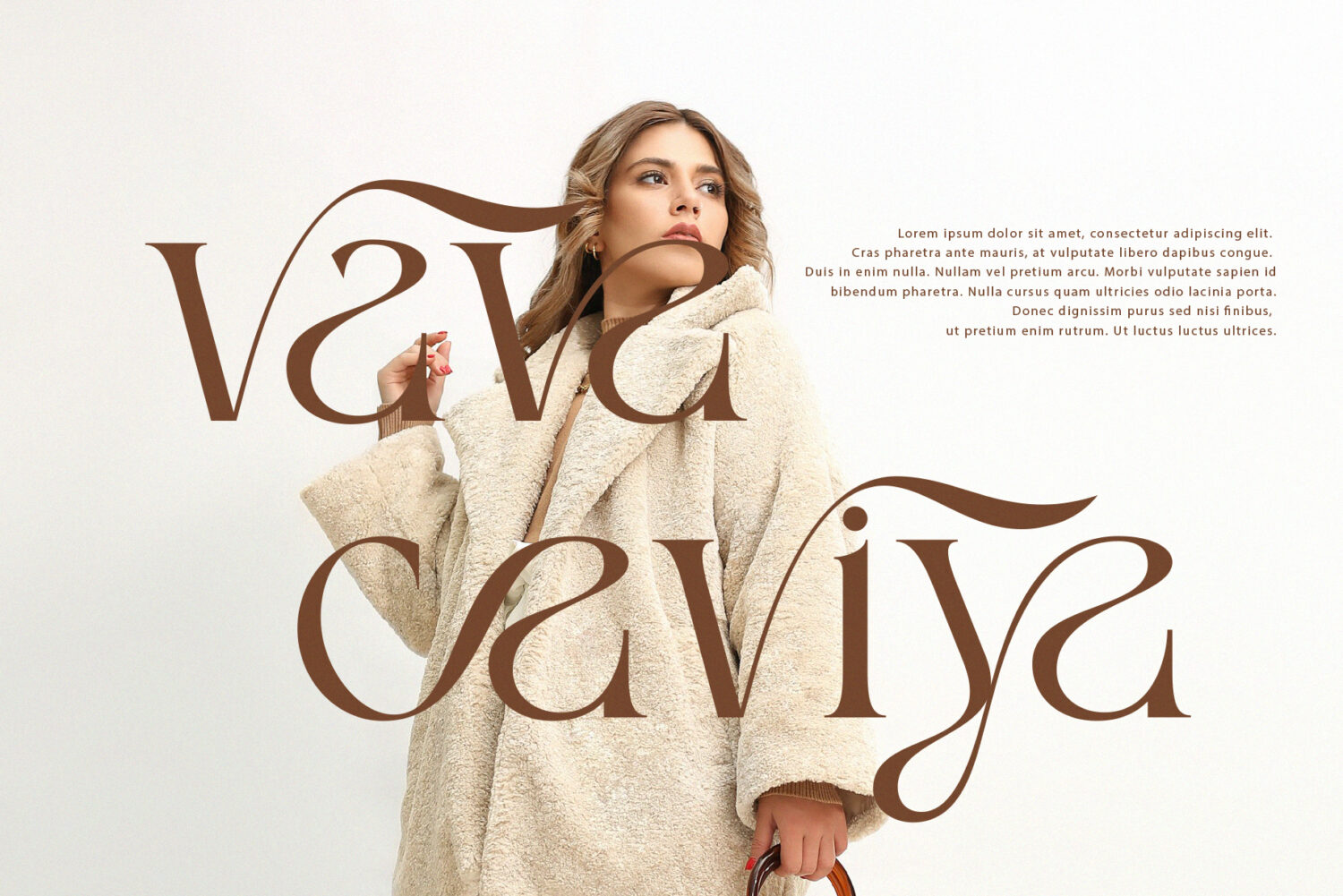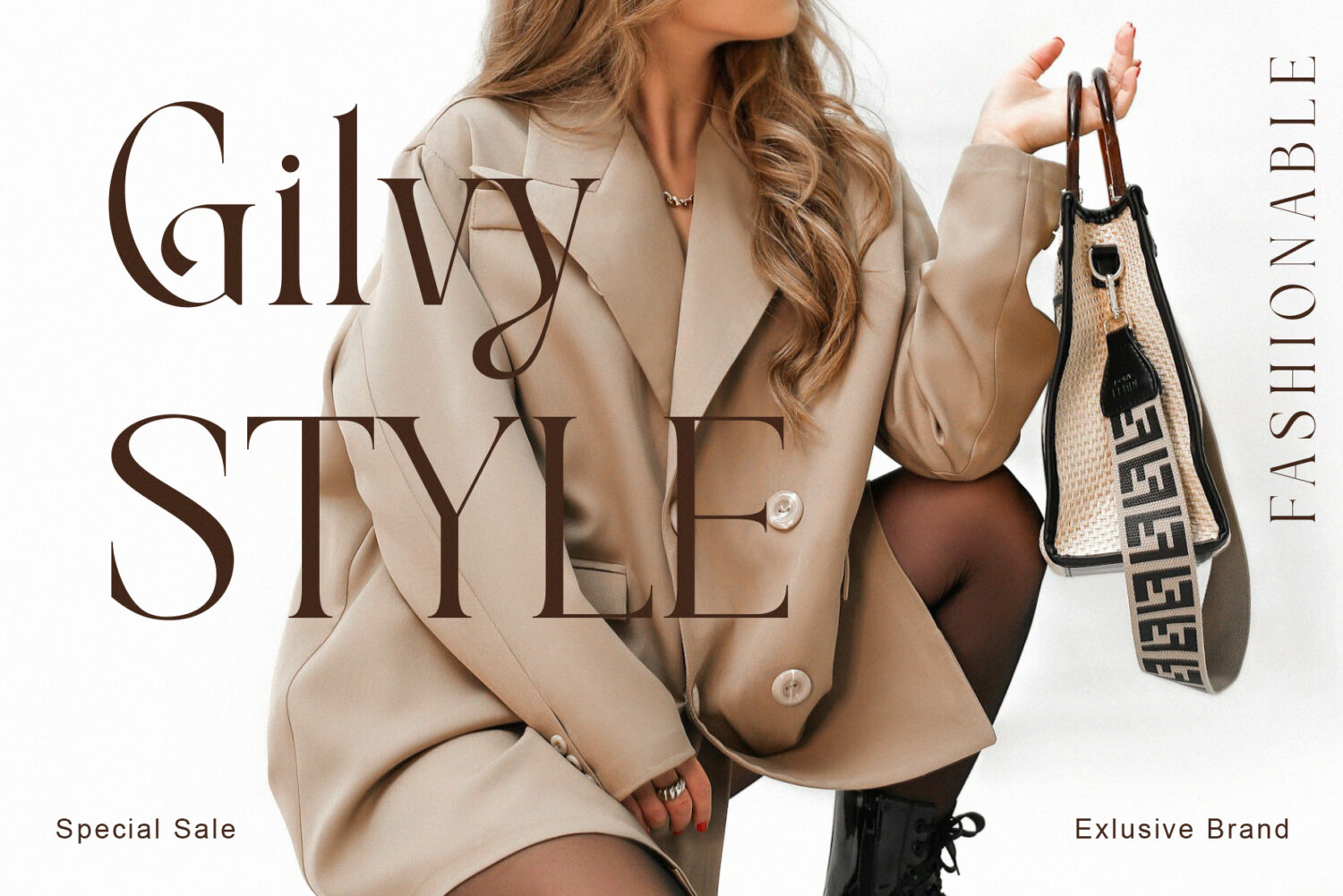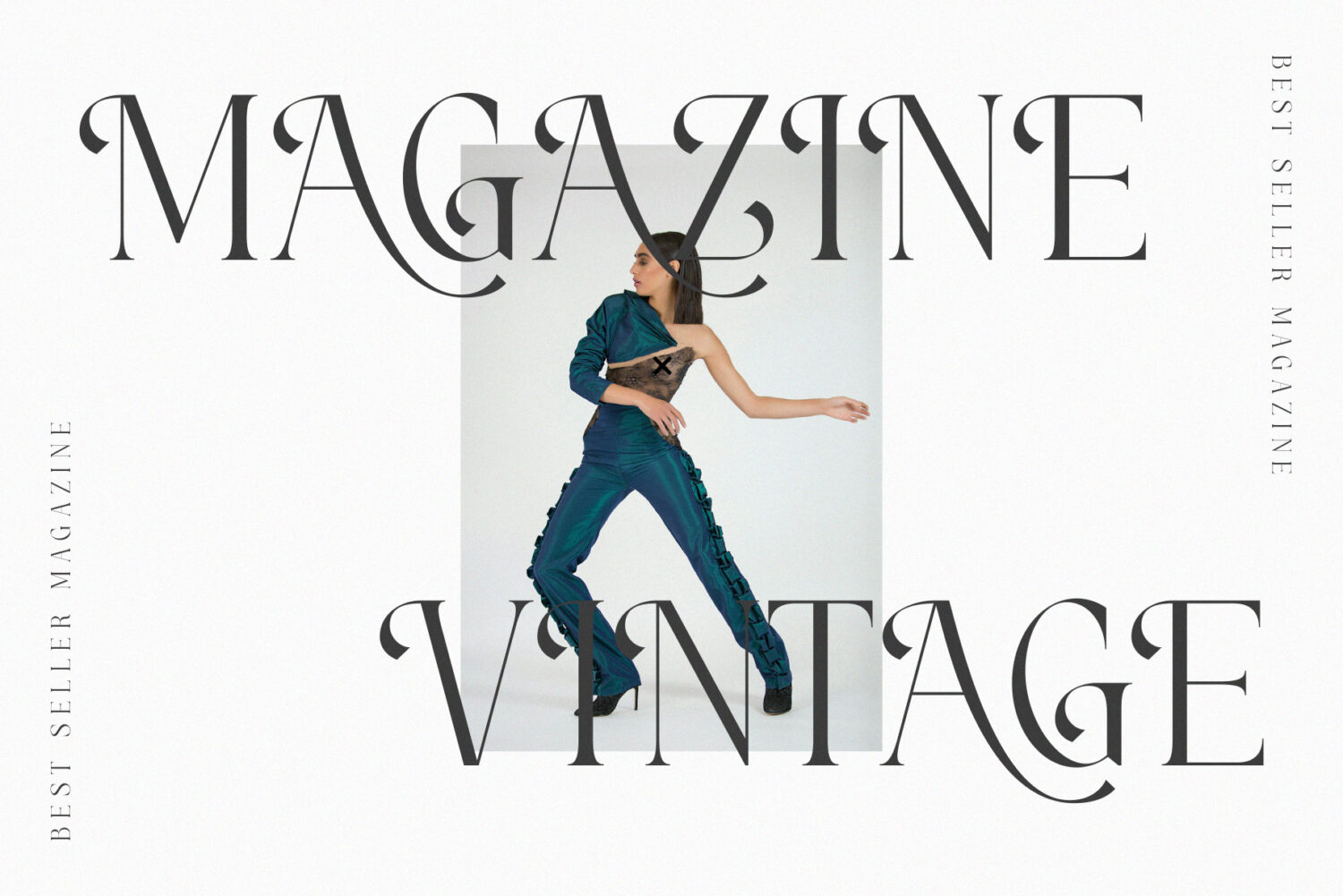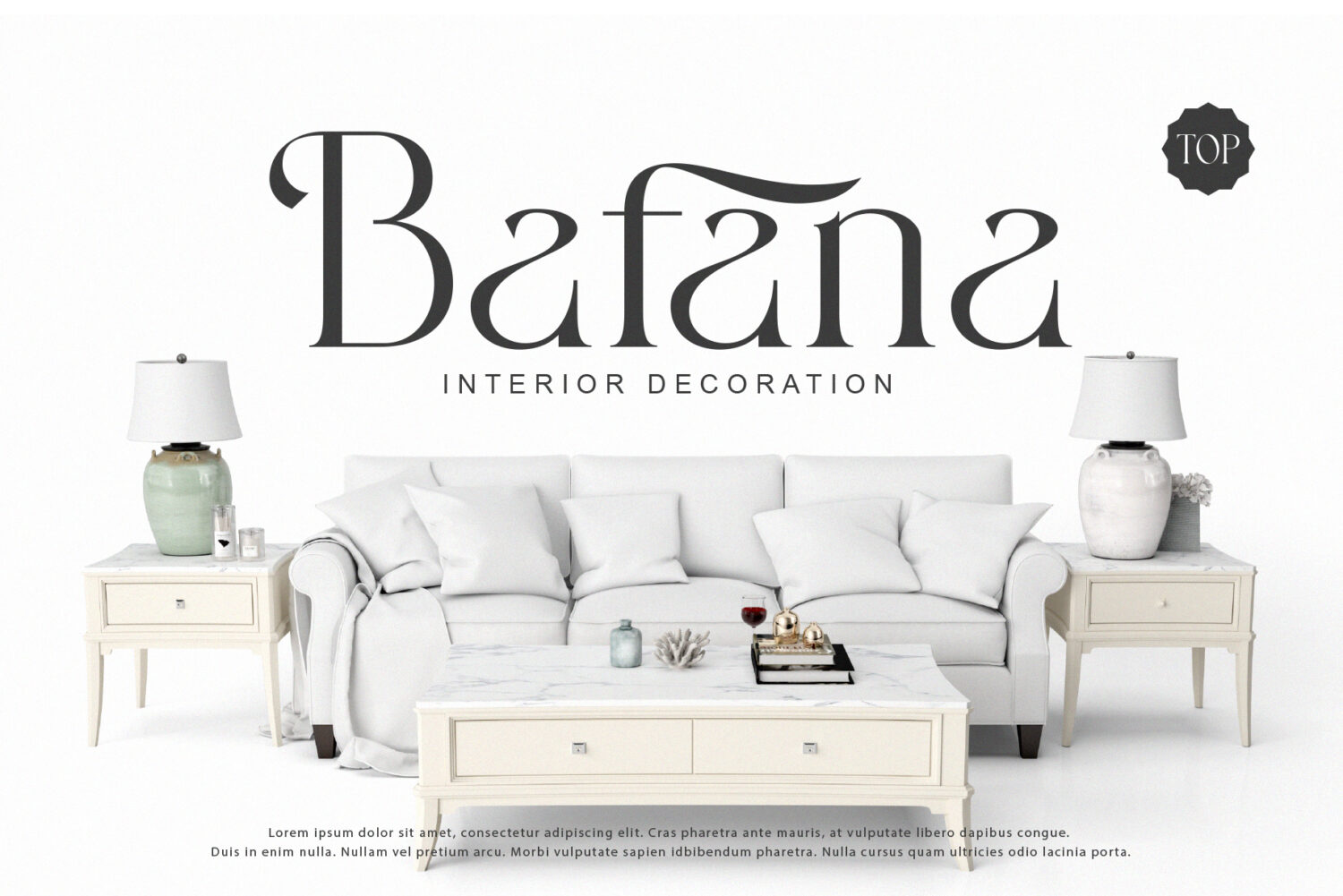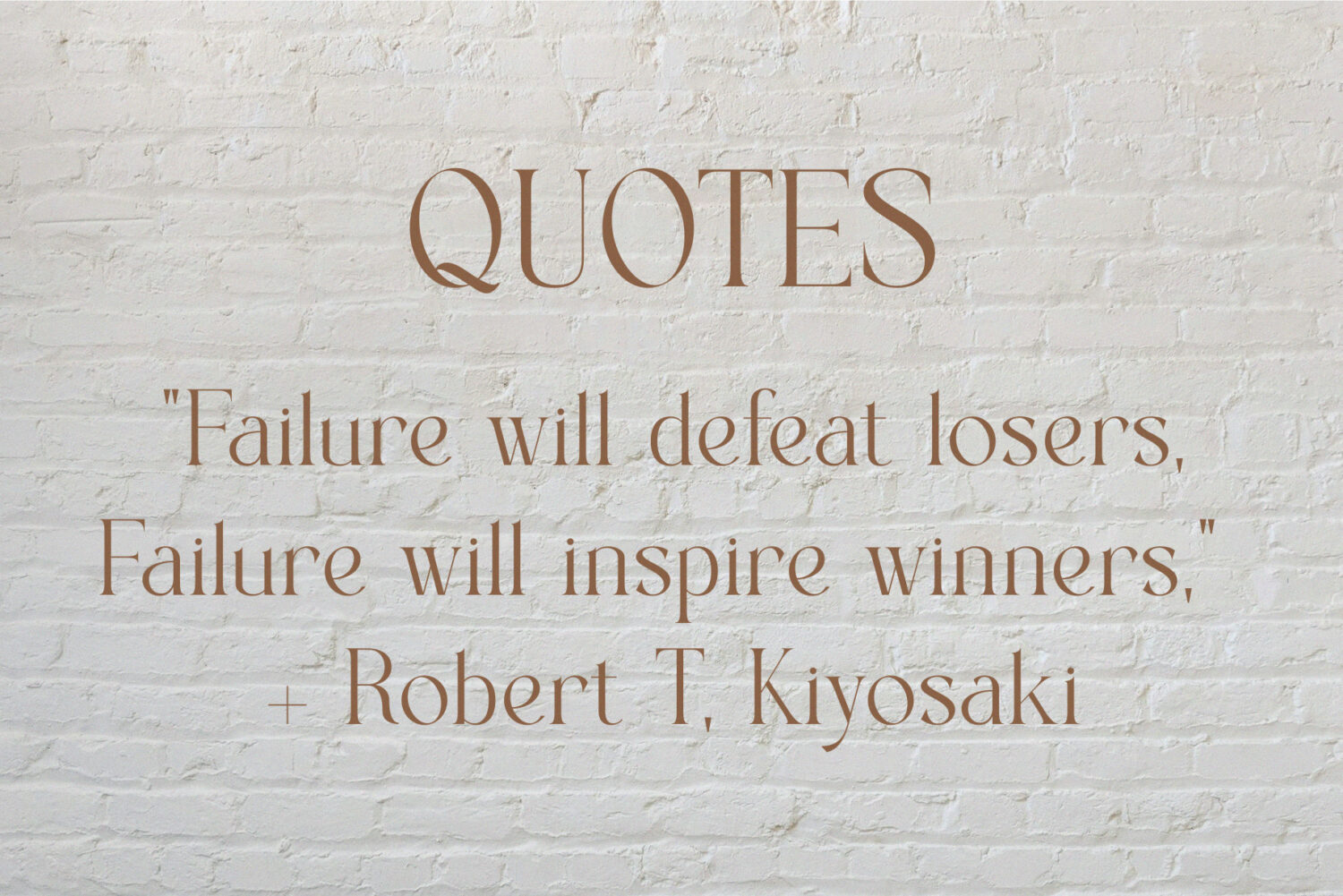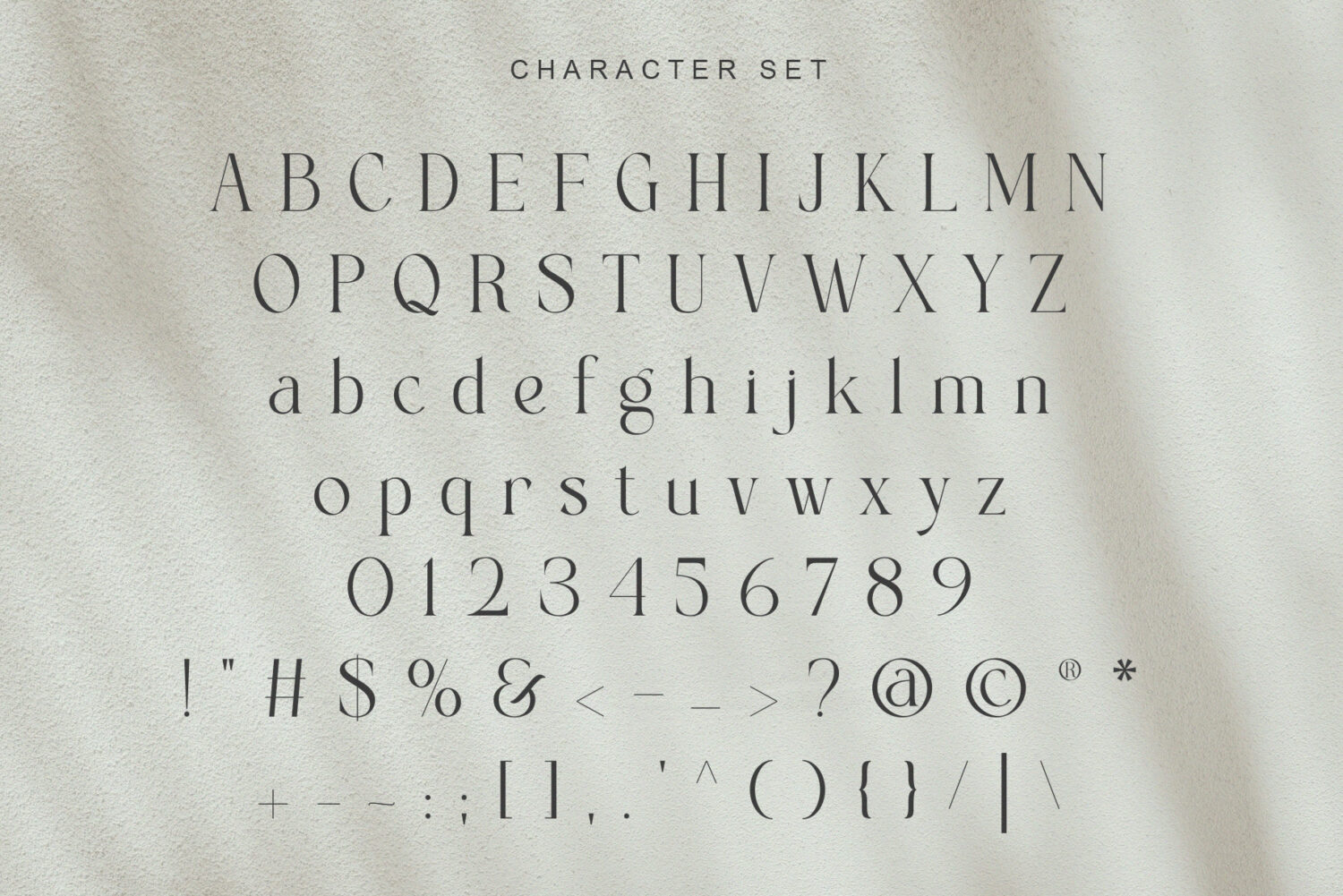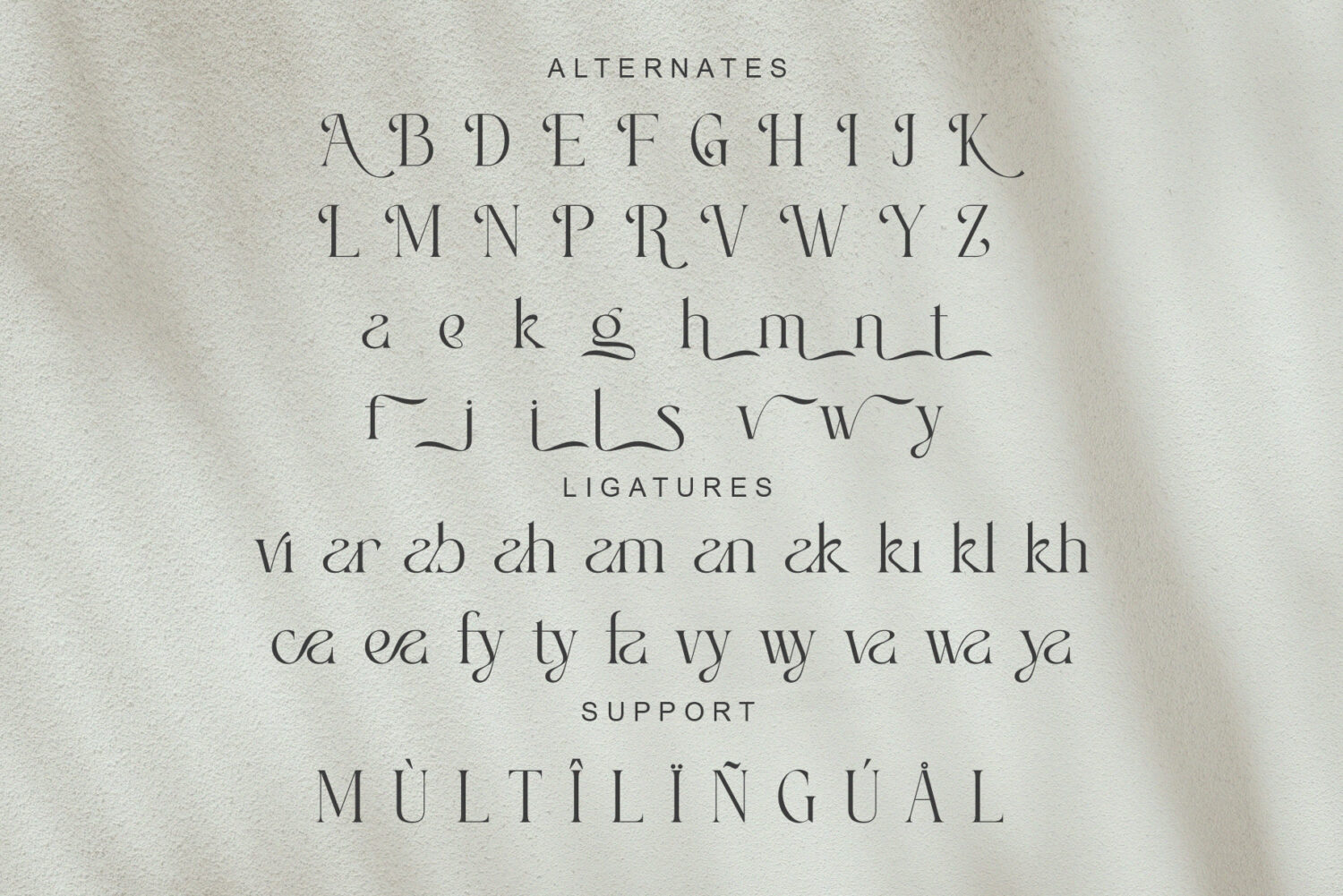
Introducing **Kaviar** the elegant, beautiful, and modern Serif. With its modern and minimalist look, Kaviar brings a luxurious, classy, and clean style to your projects such as websites, modern logos, brand identities, social media quotes, wedding stationery, magazines, and more!
Kaviar features unique and classy capital letters A to Z and also comes with unique alternates making Kaviar a beautiful font that can be customized for various projects and jobs you want.
Kaviar is perfect for: logos, brands, wedding invitations, business cards, greeting cards, posters, magazines, social media, agenda prints, and websites.
– Alternative styles and ligatures (on some fonts)